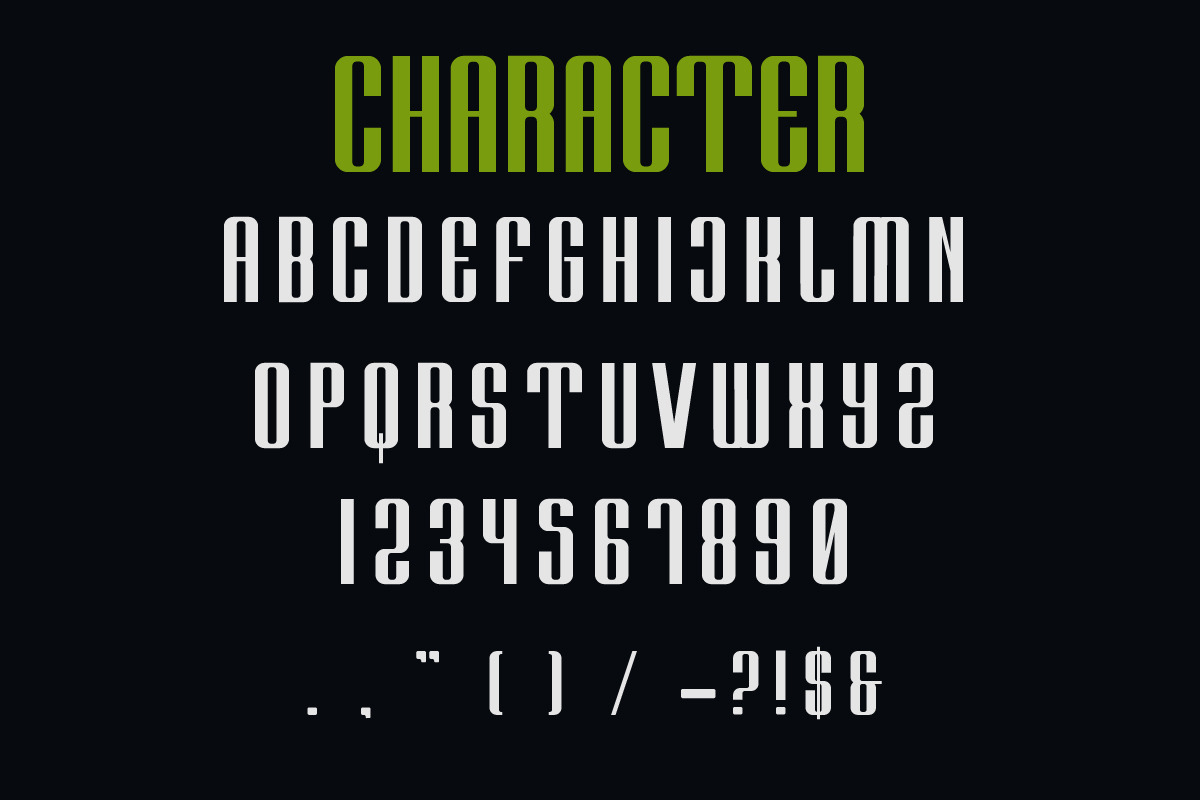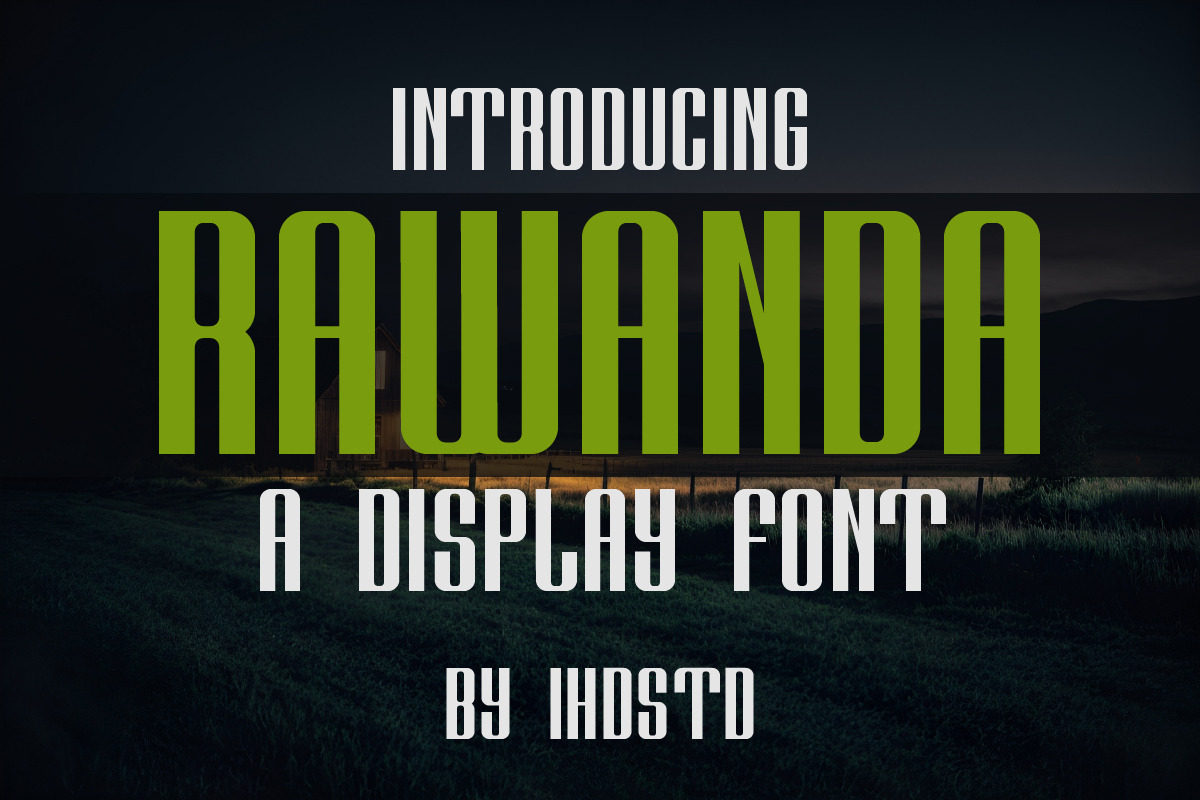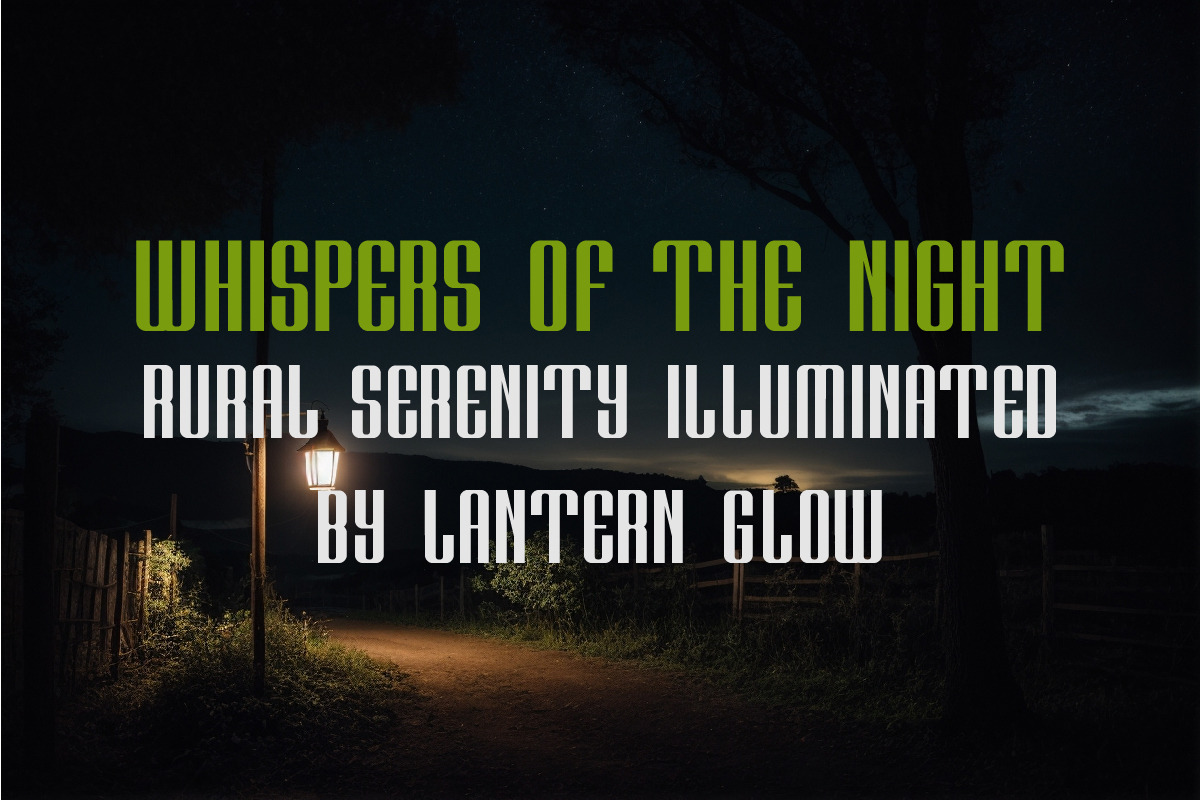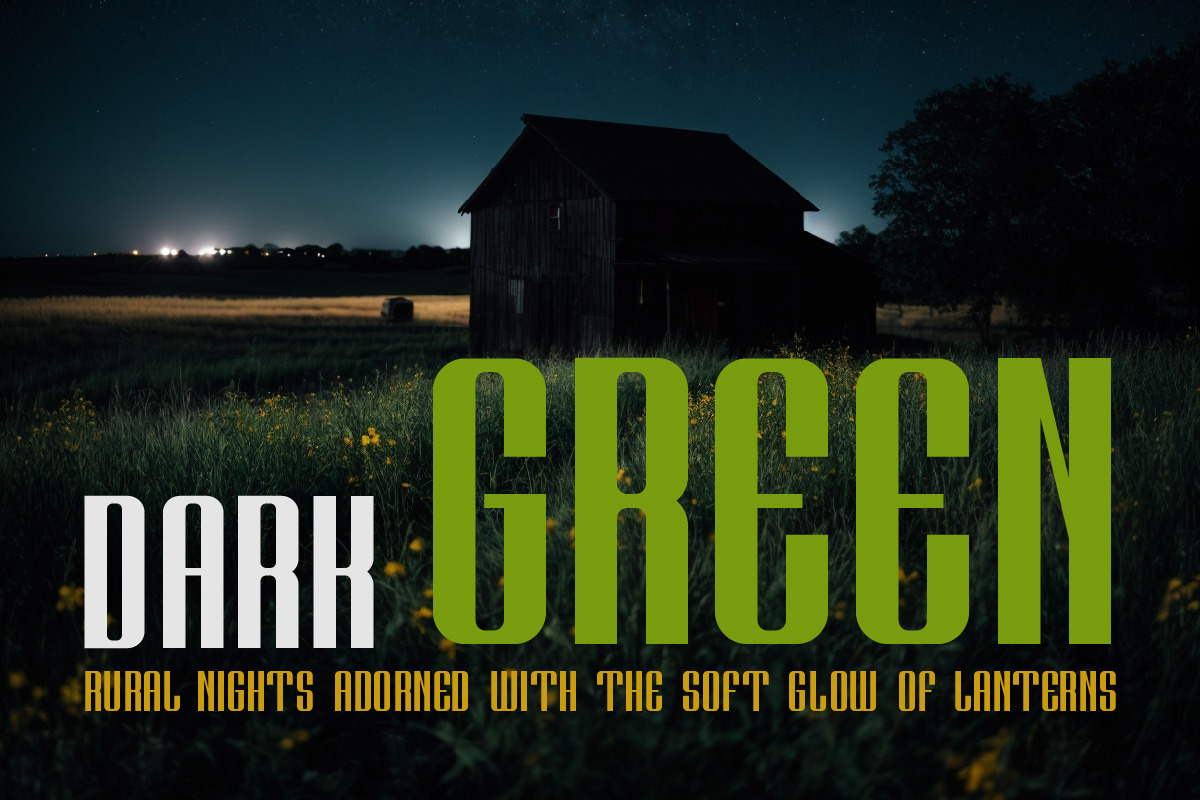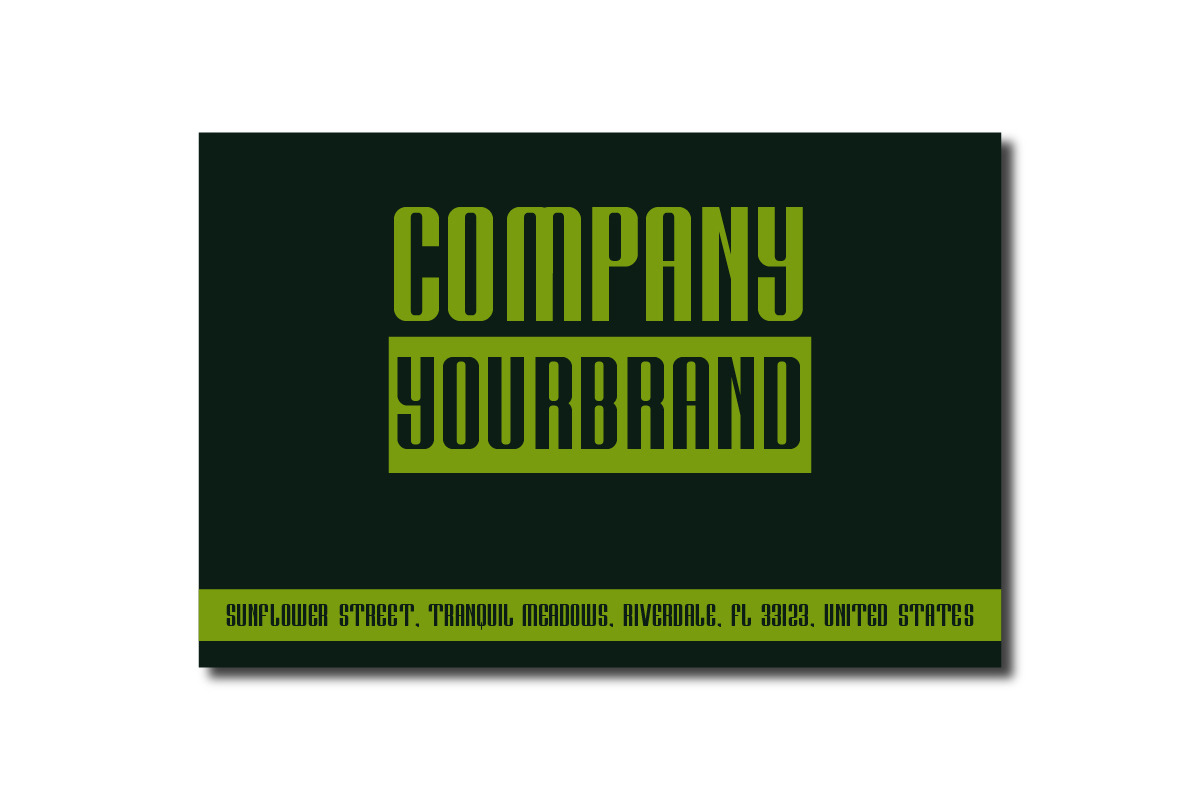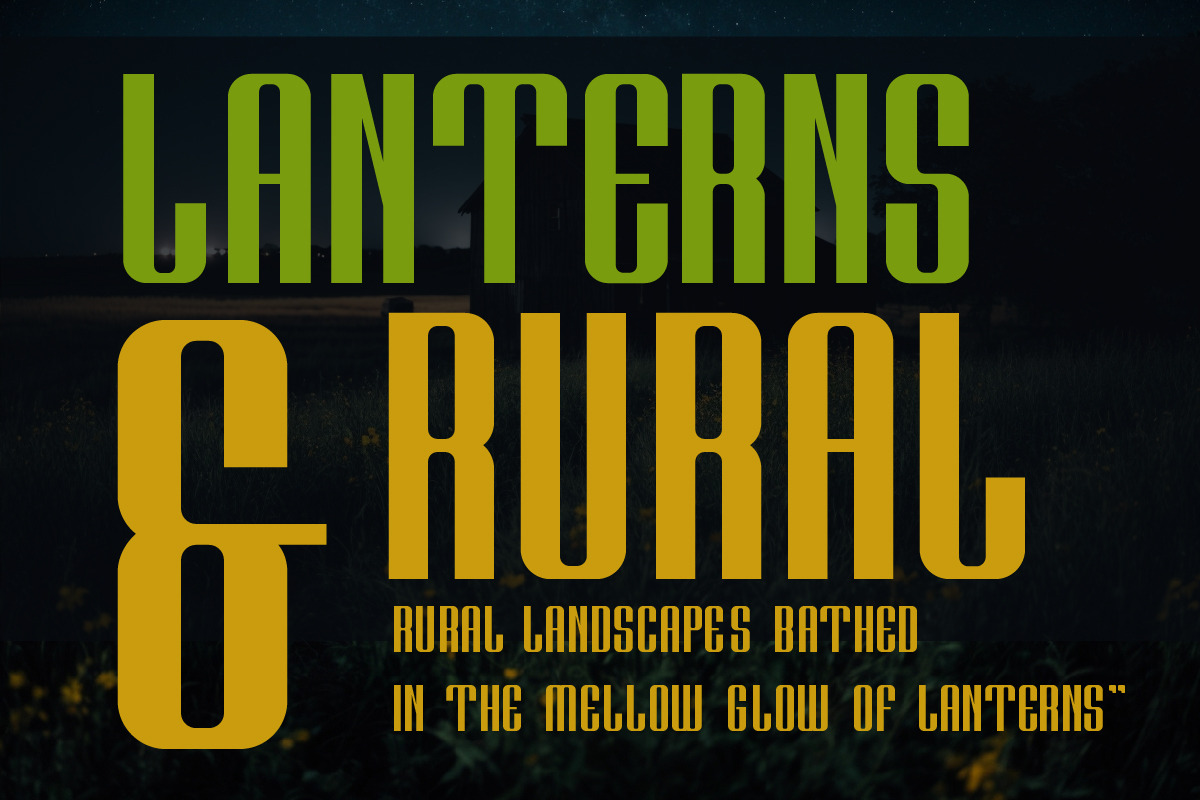
Rawanda a Display Font
Rawanda a Display Font Display font is our new item suitable for your Posters.
Great for Logo, Poster, Sticker, Jerseys, Invitation Card, Brochure, etc.